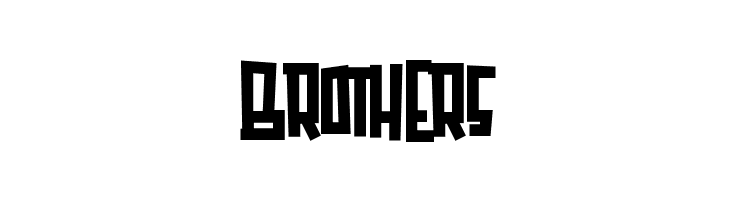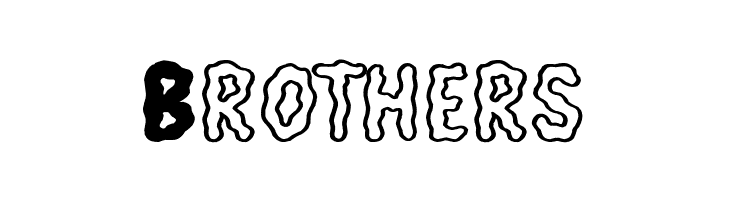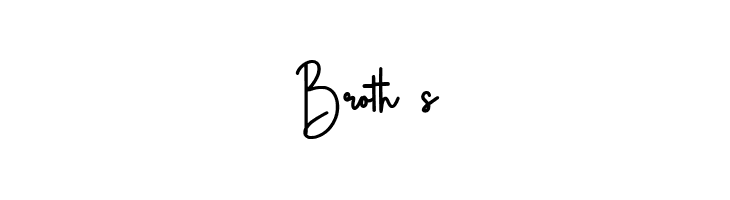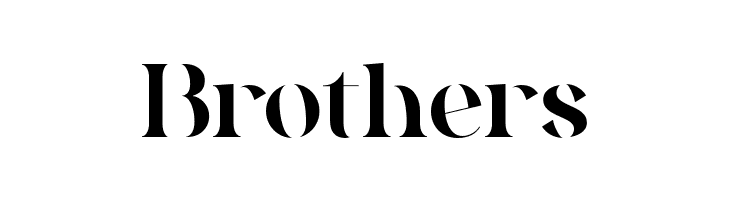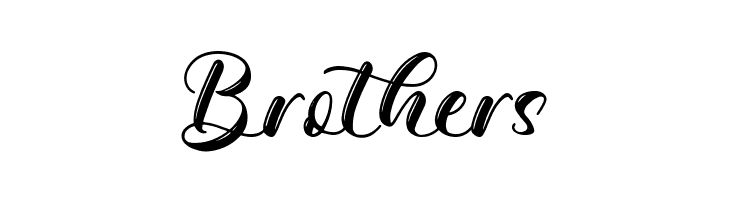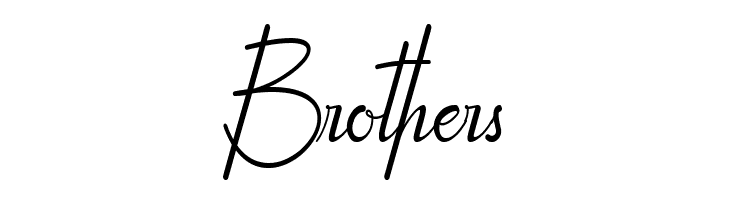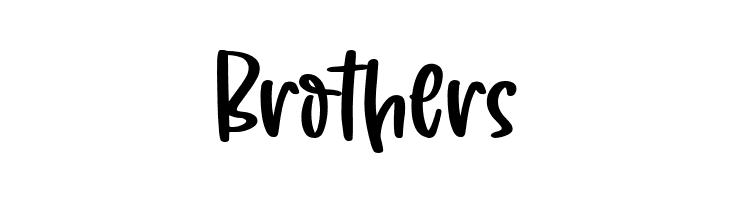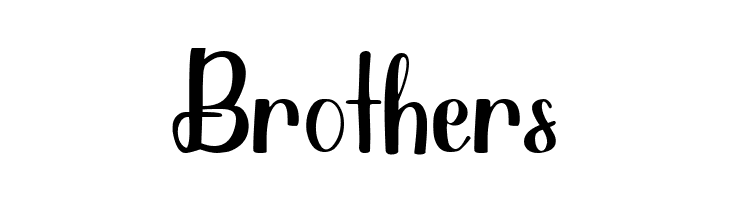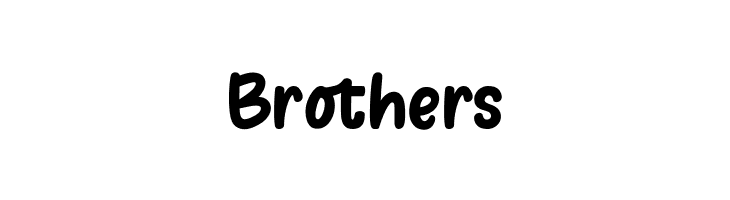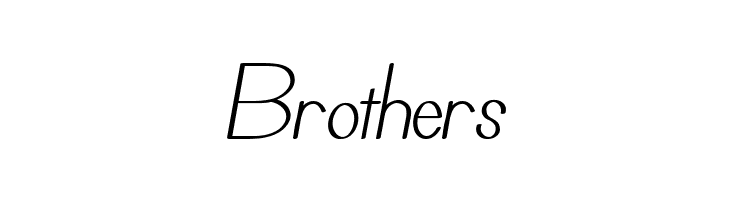
A playful, handwritten font with tall, narrow characters and a whimsical style.
A dynamic, brush-style font with an expressive, handwritten look.
A bold, playful handwritten font with a dynamic and friendly style.
A playful, hand-drawn font with rounded, bold characters.
A playful handwritten font with flowing, irregular letterforms and a modern aesthetic.
A geometric, angular font with a futuristic and abstract design.
A dynamic and flowing script font with elegant, cursive letterforms.
A bold, cursive font with elegant loops and a calligraphic style.
A cursive, calligraphic font with elegant loops and swirls.
A bold, playful handwritten font with a dynamic and informal style.
A bold, playful handwritten font with dynamic strokes and a modern feel.
A bold, playful script font with a handwritten style.
A graceful and elegant script font with flowing, connected strokes.
A playful and elegant handwritten script font with a whimsical flair.
A graceful script font with elegant loops and swashes, reminiscent of classic calligraphy.
A flowing, cursive font with elegant loops and swashes.
A playful, handwritten font with smooth curves and a casual style.
A sleek, modern font with thin, elongated characters and a slightly italicized style.
A playful and elegant handwritten font with fluid, flowing letterforms.
A playful and whimsical font blending script and sans-serif styles.
A modern, elegant font with high contrast and subtle serifs, perfect for luxury branding.
A sleek, modern italic font with smooth curves and elegant slant.
A bold, modern font with block-like characters for impactful designs.
A bold, geometric font with a futuristic, industrial style.
A bold, playful font with wavy, irregular outlines and a dynamic appearance.
A bold, brush-style font with dynamic and energetic strokes.
A bold, high-contrast font with angular serifs and a modern edge.
A bold, high-contrast serif font with angular cuts and modern flair.
A playful and artistic script font with flowing, interconnected letterforms.
A bold, dynamic script font with flowing, energetic strokes.
A modern script font with elegant, flowing curves and decorative elements.
A dynamic and playful script font with a handwritten feel.
A playful and dynamic script font with flowing, cursive letterforms.
A bold, geometric font with a modern, blocky design.